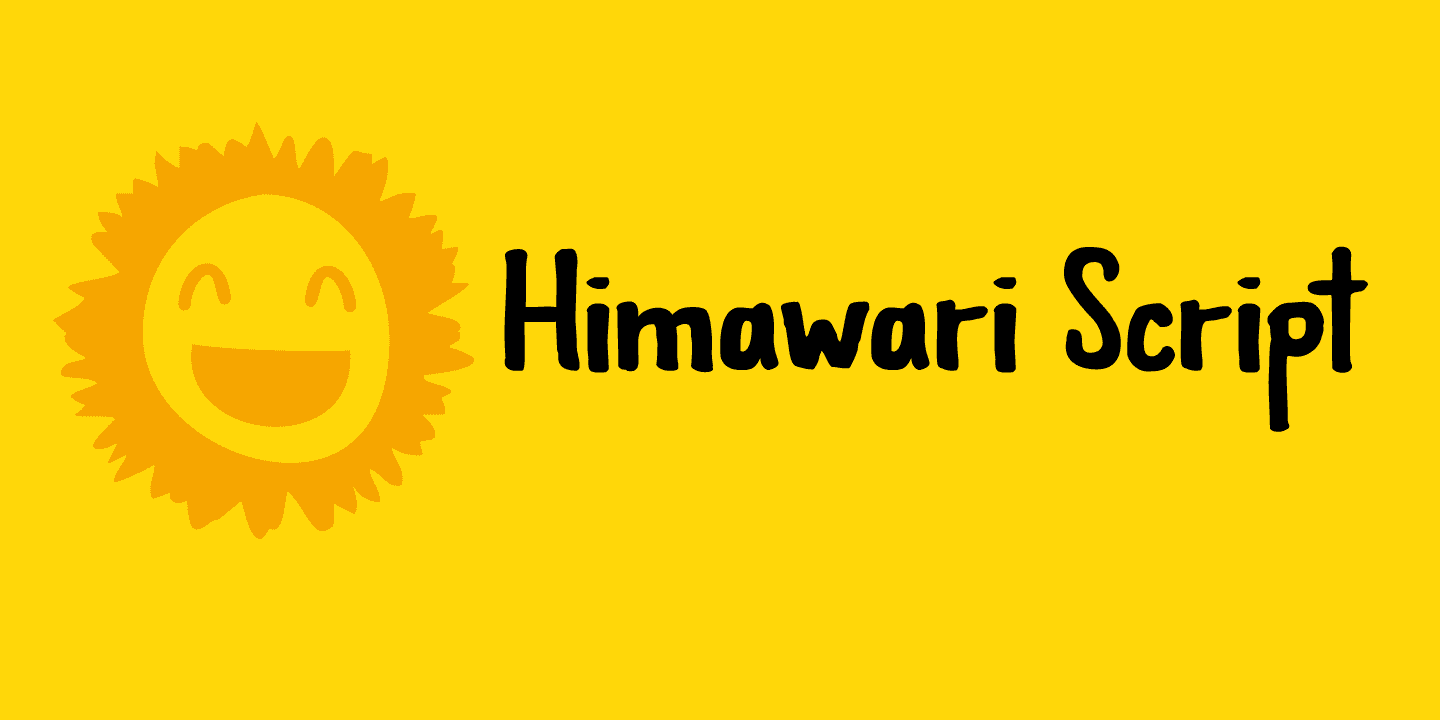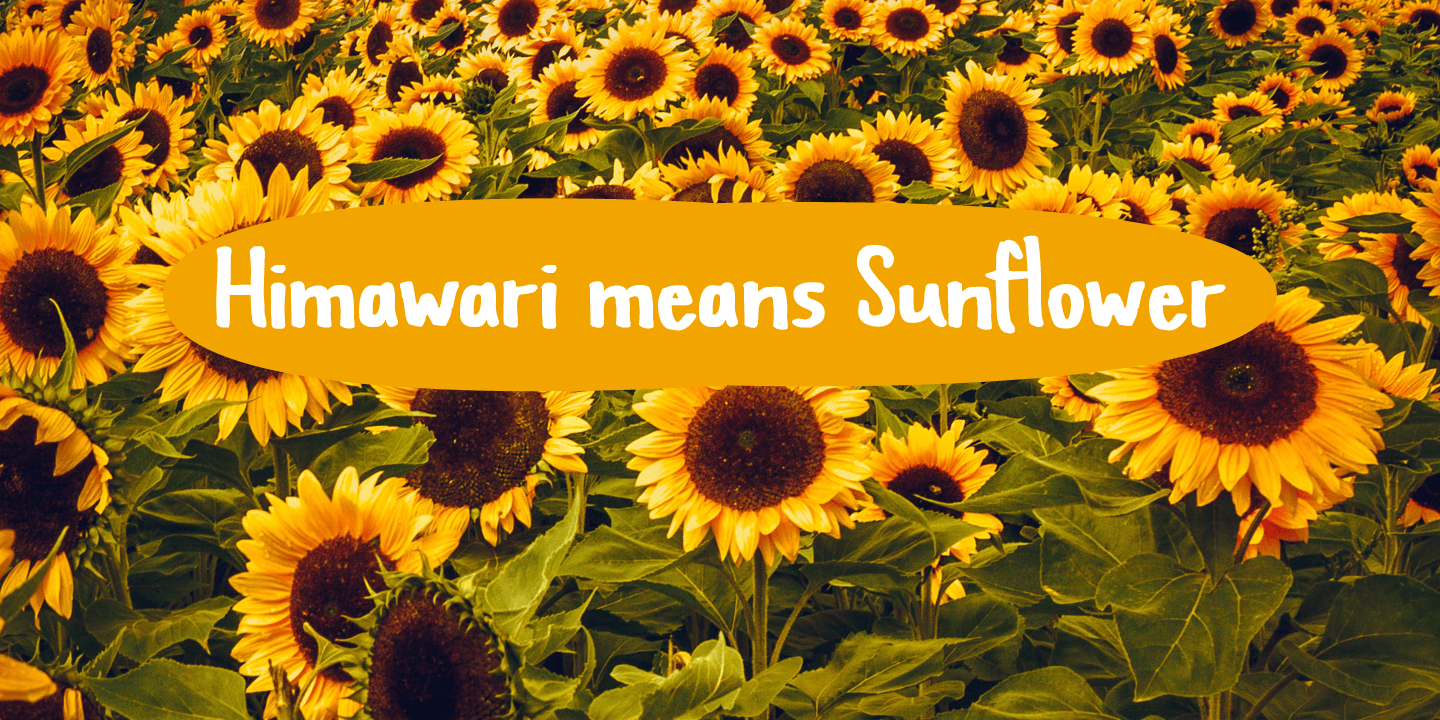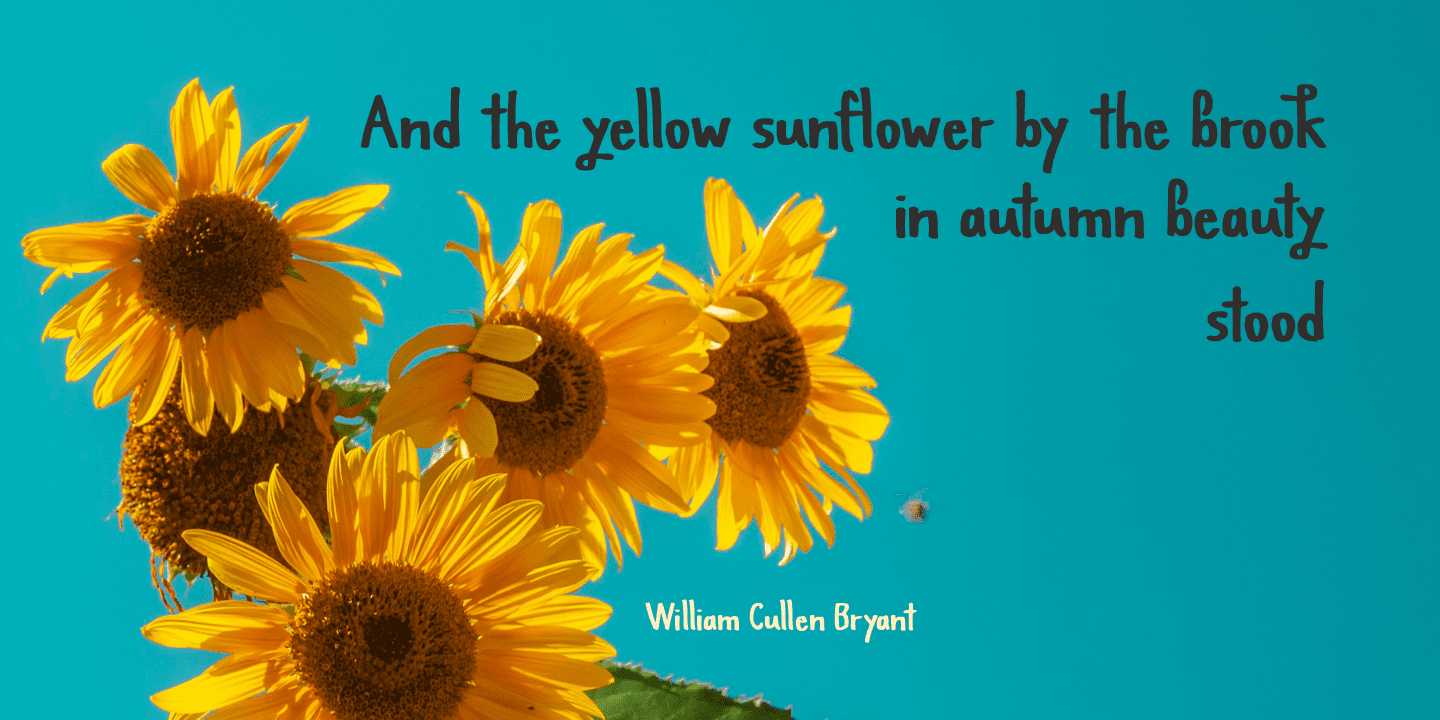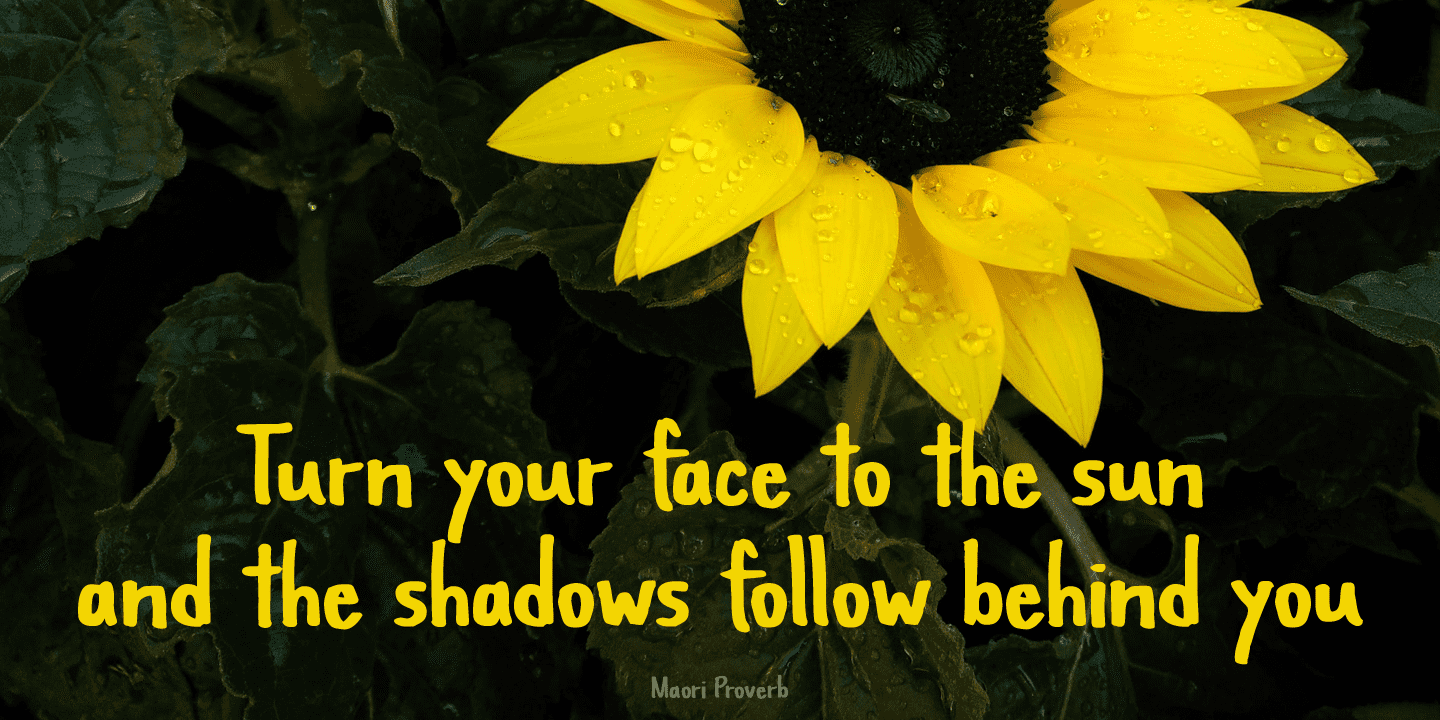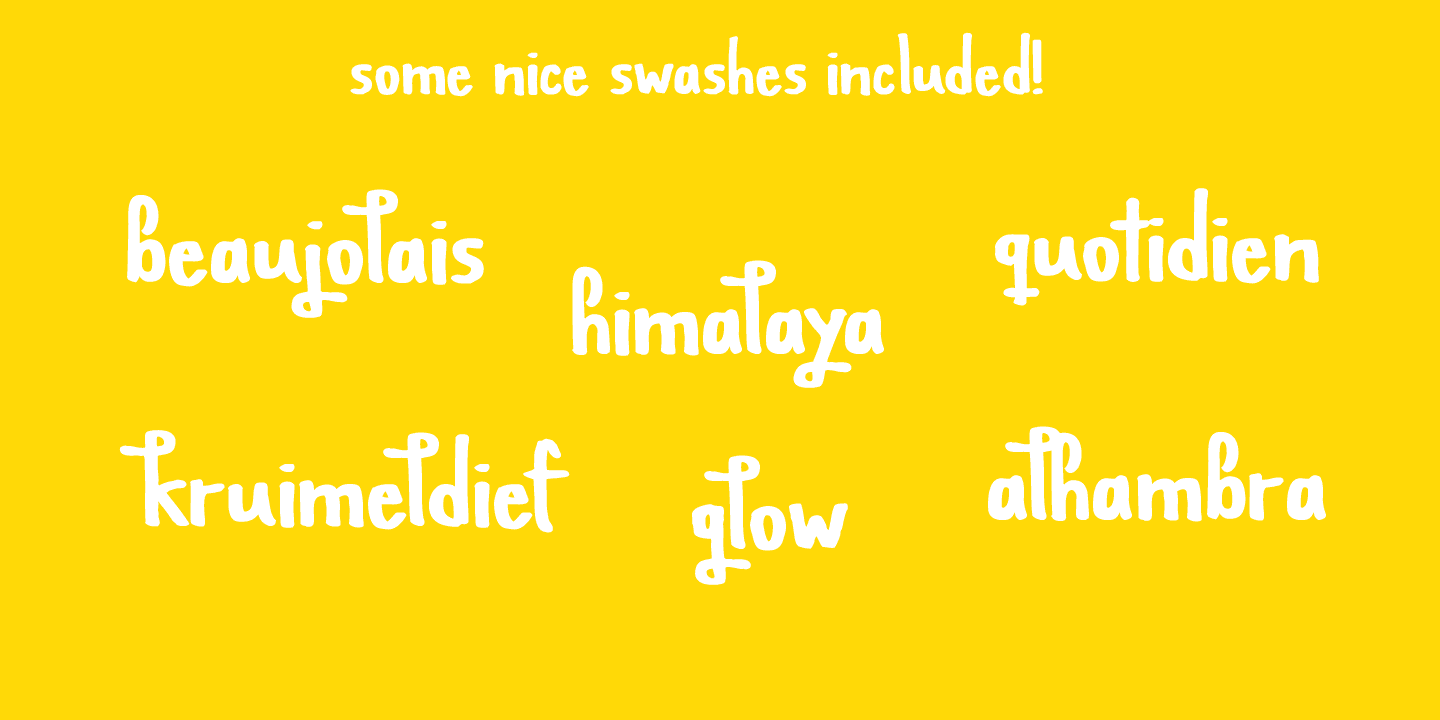
Himawari Script is a nice and neat handmade font, which was (more or less) inspired by an older font of mine, called mama Bear and, like the font it was modeled on, was made with a bamboo pen and Chinese ink.
Himawari Script comes with some swashes and a cute smiling sunflower (just enable Stylistic Alternates and hit *).